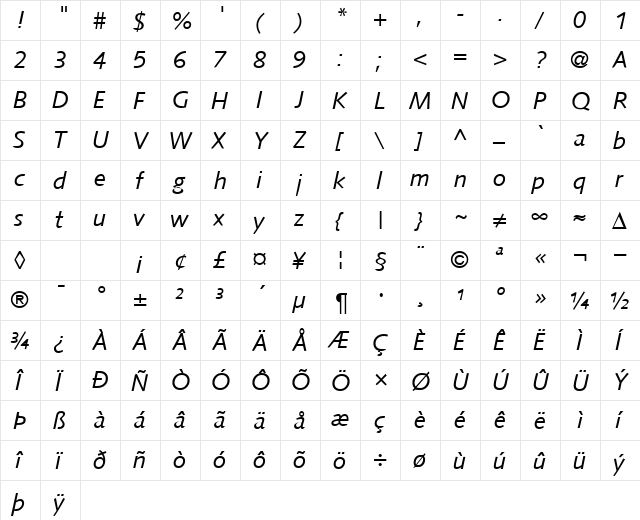
SyntaxTwo RegularItalic
Design Context for SyntaxTwo Typeface
SyntaxTwo is a composed and adaptable typeface that performs quietly and consistently across a wide range of design contexts. The slanted form adds forward momentum and visual energy.
Pro Tip: Use SyntaxTwo for emphasis, pull quotes, and subheadings where its slanted energy can add rhythm to the layout.